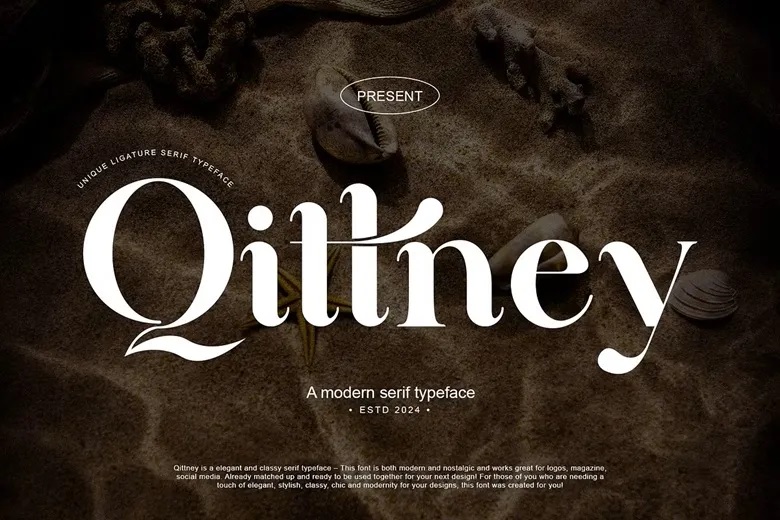
Qttney Font
Quittney is a flexible serif font that blends modern style with a feel of traditional charm. Perfect for magazines, logos, and social media, its combined styles are ready to use together, making it simple to create polished and cohesive designs.
Created for designers seeking beauty, style and a chic, contemporary touch, this font adds sophistication and a futuristic edge to any project. Built with OpenType functionality, it includes numbers, ligatures, multilingual support and punctuation. This offers both elegance and practical flexibility for professional design work.
Qttney Serif Font